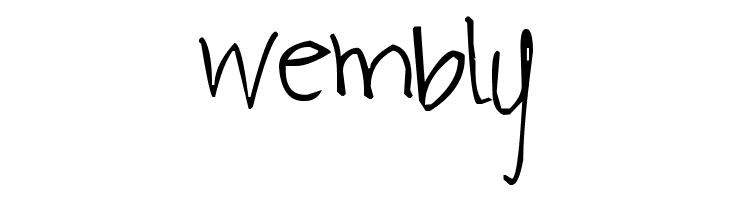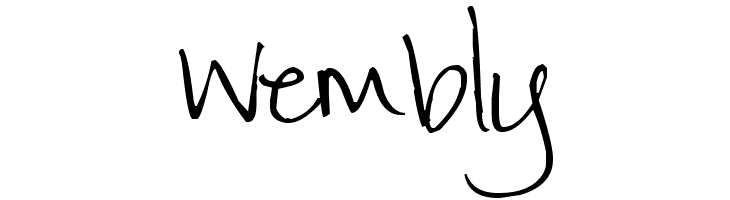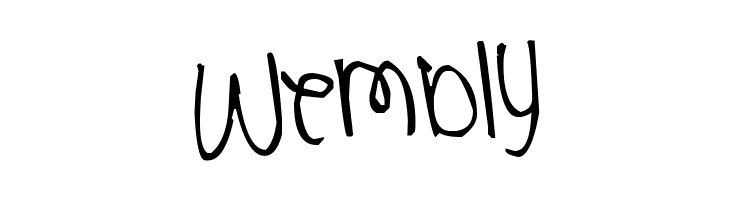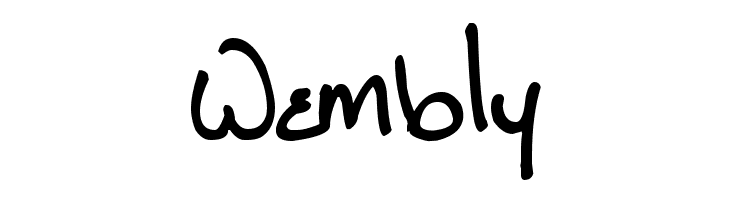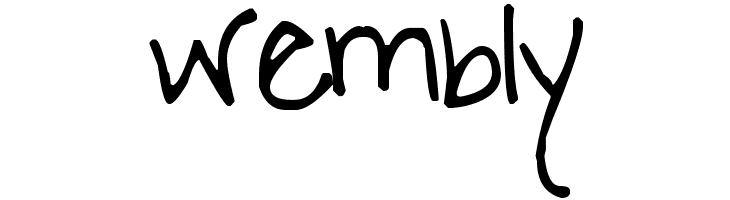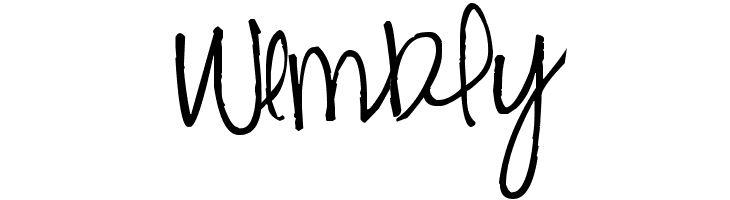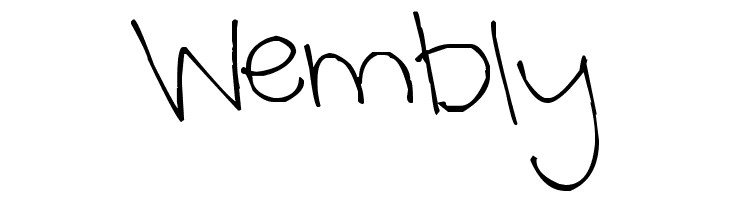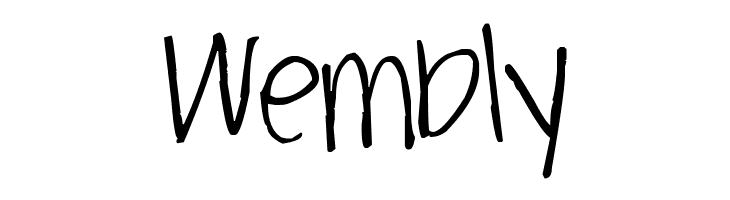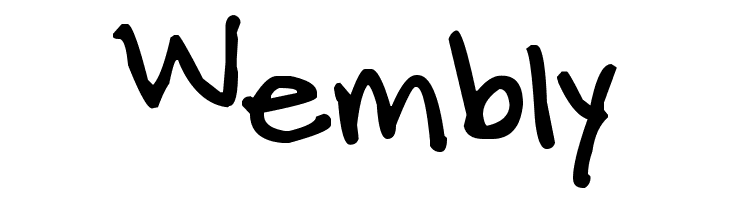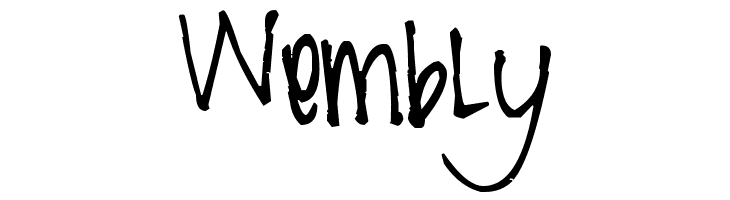
Pea Carissa Font
A playful, casual handwritten font with uneven strokes and a personal touch.
Pea Carlisle Font
A playful, casual handwritten font with dynamic strokes and a lively appearance.
Pea Carmen Font
A playful, casual handwritten font with a dynamic and lively appearance.
Pea Carol Font
A playful, casual handwritten font with irregular strokes and a natural flow.
Pea Carolyn Font
A playful, casual handwritten font with irregular strokes and a whimsical feel.
Pea Carrie Font
A playful, handwritten font with a casual and lively style.
Pea Carrie Script Font
A playful, casual handwritten script with bold strokes and a dynamic feel.
Pea Cassie Font
Pea Catherine Font
A playful, handwritten font with a casual and informal style.
Pea Catherine Anne Font
A playful, handwritten font with a casual and dynamic style.
Pea Cathi Font
A playful, casual handwritten font with a dynamic and lively style.
Pea Caytee Font
A playful, casual handwritten font with irregular strokes and a lively feel.
Pea Celestial Creation Font
A playful, handwritten font with a casual and whimsical style.
Pea Cha Cha Font
A playful, hand-drawn font with a whimsical and casual style.
Pea Charmaine Font
A playful, handwritten font with a casual and dynamic style.
Pea Chelsea K Script Font
A lively, handwritten script font with elegant, flowing connections.
Pea ChickieShannon Font
A playful, handwritten font with a casual and friendly vibe.
Pea Chit's Bits Font
A playful, handwritten font with a whimsical and dynamic style.
Pea Chris in a Hurry Font